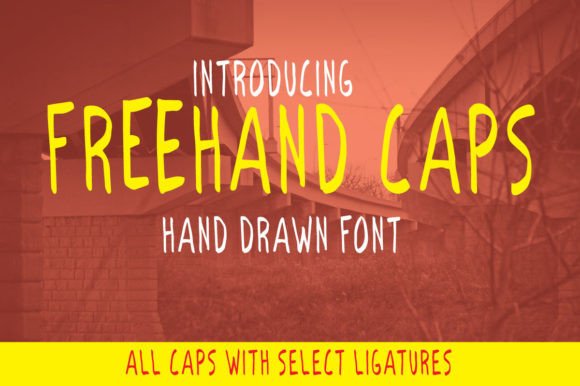
Introducing Freehand Caps Font: Elevate Your Designs with a Touch of Trendiness
In the world of design, fonts play a crucial role in conveying messages, evoking emotions, and adding personality to your creations. If you’re a designer, crafter, or digital artist looking for a font that combines style with versatility, look no further than Freehand Caps Font. This all-caps display font is not only visually stunning but also incredibly practical for a wide range of projects, from digital designs and presentations to greeting card making and crafting.
What Makes Freehand Caps Font Stand Out?
Freehand Caps Font is designed with the perfect amount of trendiness, making it an excellent choice for designers who want to add a modern touch to their work. Its all-caps design ensures that your text stands out, whether you’re working on a digital project or a physical one. The font’s freehand style gives it a personal, handcrafted feel that can add warmth and character to your designs.
One of the key advantages of Freehand Caps Font is its versatility. It’s suitable for a wide range of applications, including:
- Crafting: Whether you’re working on DIY projects, scrapbooking, or any form of crafting that involves lettering, Freehand Caps Font can add a personal and stylish touch.
- Digital Designing: For digital artists and designers, this font is perfect for adding text to graphics, illustrations, and digital artworks.
- Presentations: Make your presentations more engaging and professional with a font that stands out without being too overpowering.
- Greeting Card Making: Add a personal touch to your greeting cards with beautifully styled text that captures the essence of your message.
Freehand Caps Font is PUA (Private Use Area) encoded, which means you can easily access all the amazing glyphs and ligatures it offers. PUA encoding allows designers to access a wide range of characters and alternate glyphs that aren’t available in standard fonts, giving you more creative freedom and flexibility. This feature is particularly useful for designers who want to experiment with different styles and variations without having to switch between multiple fonts.
Why Choose Freehand Caps Font?
There are several reasons why Freehand Caps Font should be your go-to choice for your next design project:
- Unique Style: Its freehand, all-caps design is unique and eye-catching, perfect for making a statement.
- Easy to Use: Being PUA encoded makes it easy to access all glyphs and ligatures, ensuring a smooth design process.
- Versatile: Suitable for a wide range of projects, from digital designs to physical crafts.
- Trendy: The font’s trendy vibe ensures your designs feel current and appealing.
Tips for Using Freehand Caps Font
To get the most out of Freehand Caps Font, consider the following tips:
- Experiment with Sizes: The font’s impact can vary significantly with size. Experiment with different sizes to find the perfect balance for your design.
- Play with Colors: Don’t be afraid to try out different colors. The right color can enhance the font’s style and make your design pop.
- Mix and Match: Combine Freehand Caps Font with other fonts for interesting contrasts and visual hierarchies.
- Utilize Ligatures: Take advantage of the PUA encoding to explore the font’s ligatures and create unique text arrangements.
| Author | stompstock |
Freehand Caps Font is a versatile, stylish, and practical choice for designers and crafters looking to add a touch of trendiness to their projects. Its all-caps display design, combined with PUA encoding for easy access to glyphs and ligatures, makes it an invaluable tool in your design arsenal. Whether you’re working on digital designs, crafting, presentations, or greeting cards, Freehand Caps Font is sure to elevate your creations and make them stand out. So why wait? Download Freehand Caps Font today and discover a world of creative possibilities!